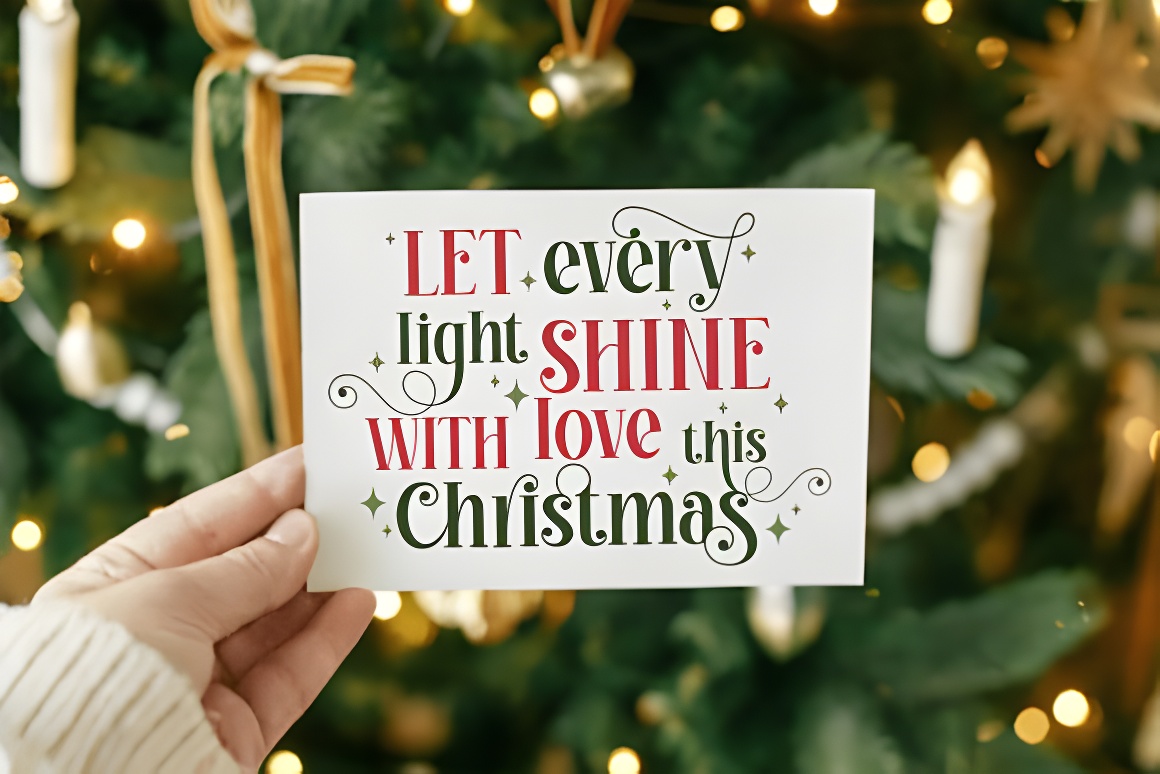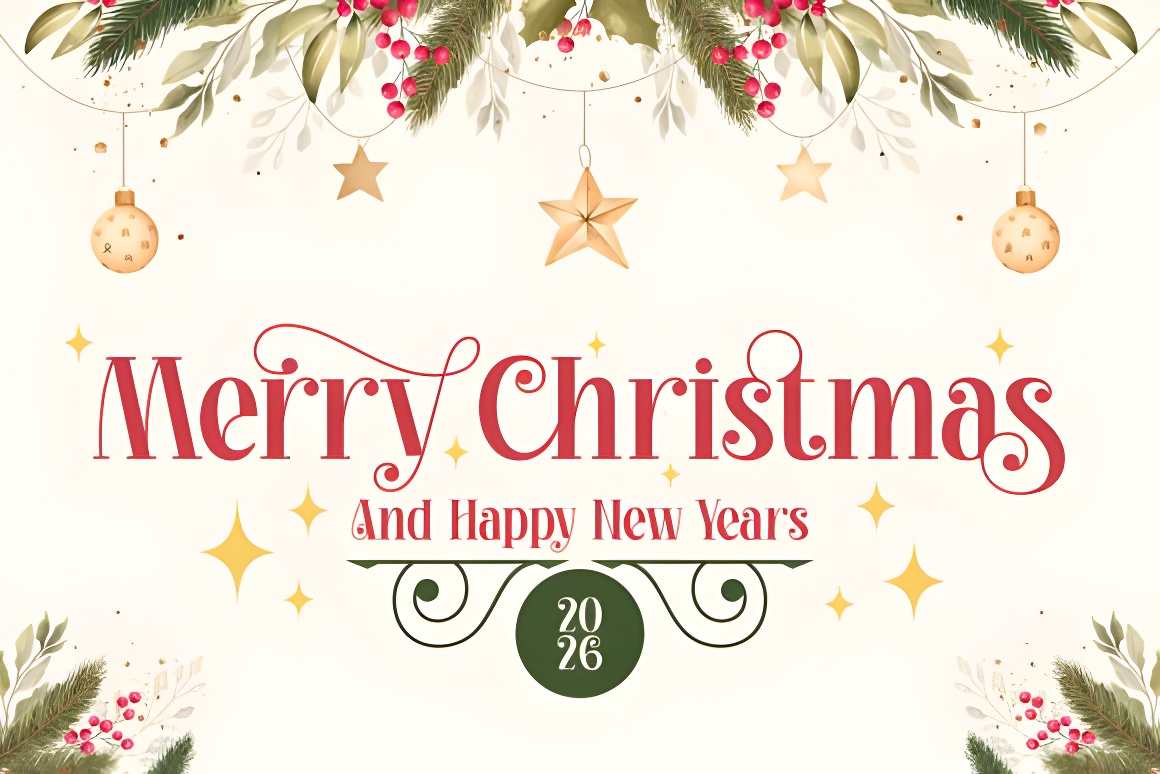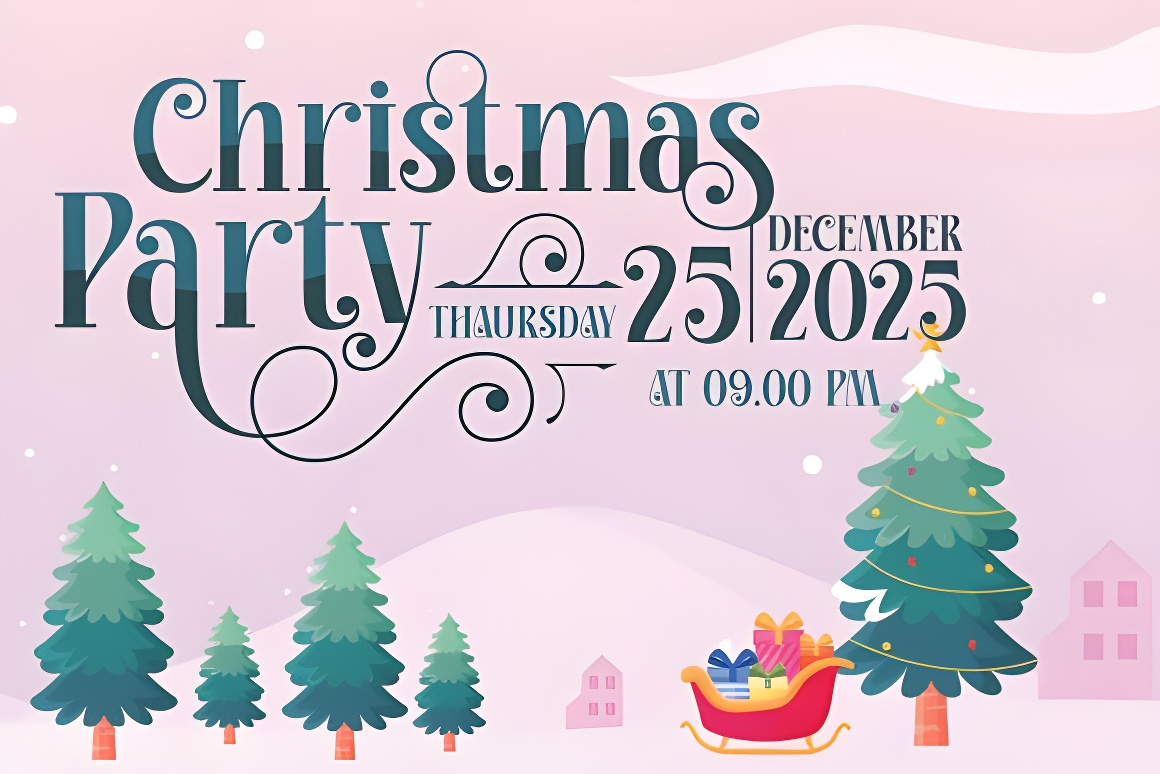
Shiny Christmas Font
Bring the sparkle of the holiday season into every design with Shiny Christmas!A modern serif typeface crafted specially for Christmas projects, featuring elegant curves, festive swashes, and charming decorative alternates. Perfect for designers who want to create warm, joyful, and magical winter vibes.This font is designed to elevate your holiday creations — from greeting cards and invitations to packaging, branding, social media, and more. The smooth contrast, playful ornament details, and stylish ligatures make each word feel like a celebration.